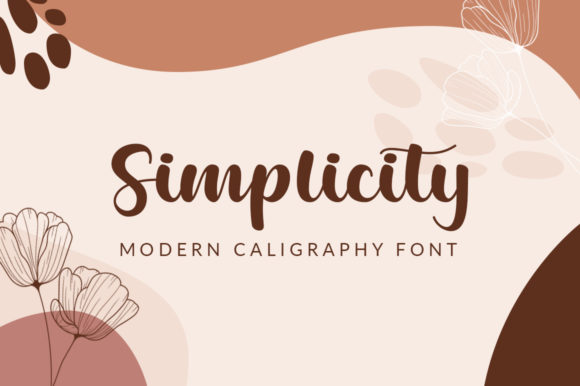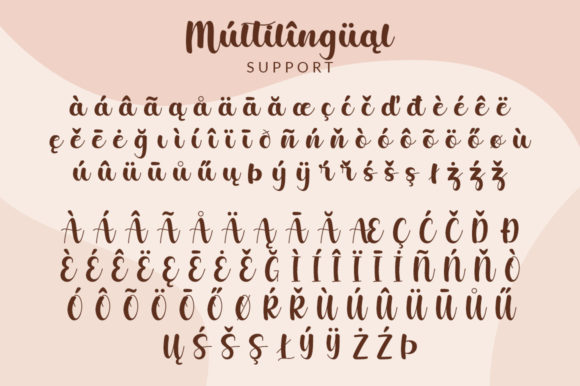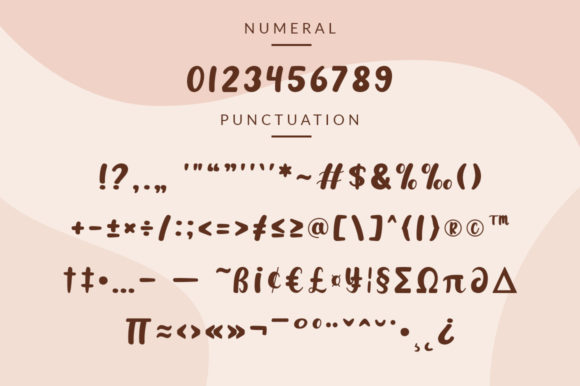
Simplicity Font
About Simplicity Font
Simplicity is a modern handwritten font carefully created with a touch of elegance. It features an incredibly casual style, while still keeping a friendly feel. This font is the perfect font for making original and outstanding designs.